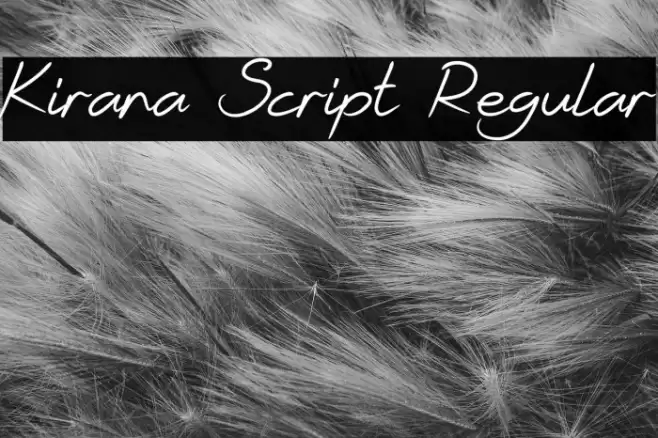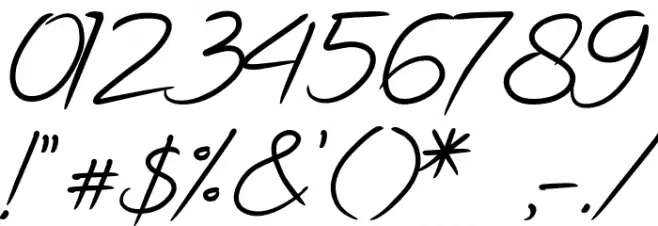
Kirana Script Regular Font
Kirana Script Regular Description
This font features a flowing, cursive style that mimics elegant handwriting. The letters are connected, creating a seamless and fluid appearance. The uppercase characters are slightly more formal, while the lowercase letters exhibit a casual, yet sophisticated flair. The numerals and special characters maintain the same fluidity, ensuring consistency across all characters. The strokes are smooth and slightly varied in thickness, adding a touch of dynamism and movement. This script font is perfect for projects that require a personal, handwritten touch, such as invitations, greeting cards, or branding materials.
A flowing, cursive script font with elegant, connected letters from Regular fonts.
- Proposed Projects: Ideal for wedding invitations, personal branding, greeting cards, and elegant packaging.
- Overall Style: Elegant, Handwritten
- Use Case: Invitations, Greeting cards, Branding